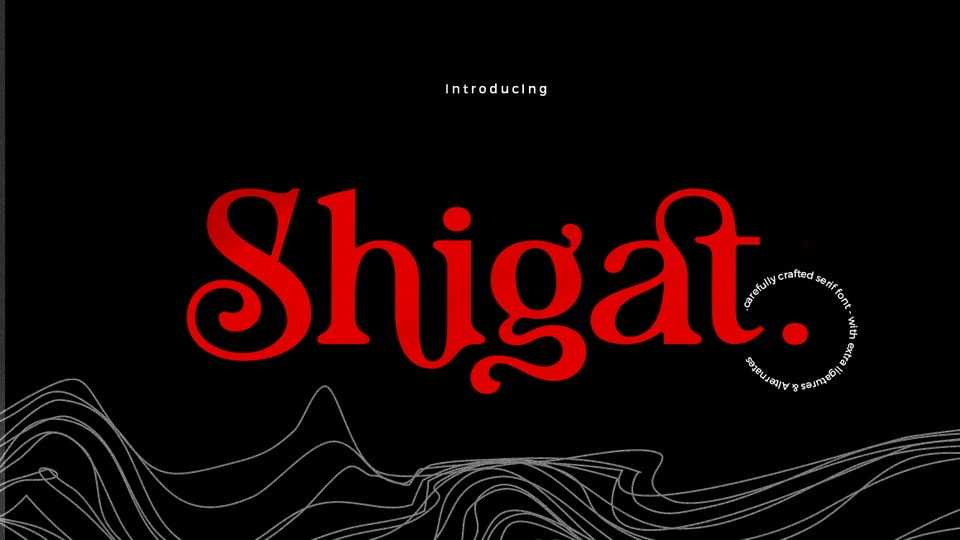
Download Shigat font, a sophisticated serif typeface that seamlessly blends unique and modern design elements to elevate your typographic expression.